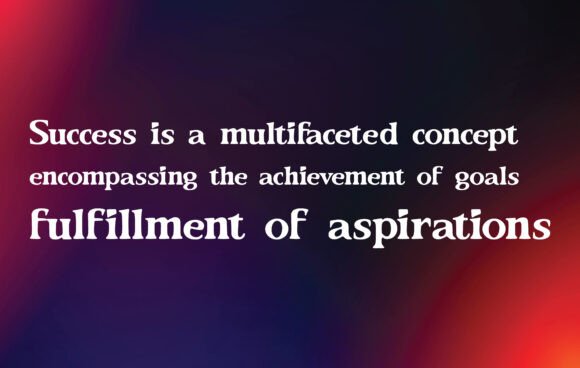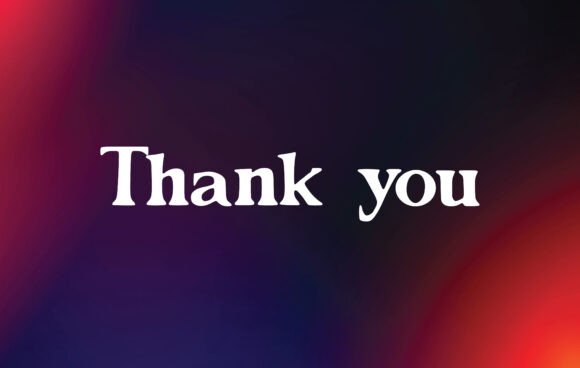
Discover the Elegance of Angela Font: Elevate Your Creative Projects
Are you a designer, craftsperson, or DIY enthusiast looking for a font that can take your creative ideas to new heights? Look no further than Angela Font, a lovely and beautiful typeface that is sure to impress. With its unique blend of elegance and versatility, Angela Font is the perfect choice for creating eye-catching logos, branding materials, and quotes that will leave a lasting impression.
The Beauty of Angela Font
Angela Font is a stunning example of typographic design, with its flowing lines, curves, and subtle nuances that give it a distinctive character. This font is designed to be both aesthetically pleasing and highly legible, making it perfect for a wide range of applications, from digital media to print materials. Whether you’re creating a logo, brochure, or social media graphic, Angela Font is sure to add a touch of sophistication and elegance to your design.
Why Choose Angela Font?
So, what sets Angela Font apart from other fonts on the market? Here are just a few reasons why designers and crafters are falling in love with this beautiful typeface:
- Unique and Versatile: Angela Font has a distinctive character that sets it apart from more traditional fonts. Its versatility makes it perfect for a wide range of applications, from logos and branding to quotes and social media graphics.
- Elegant and Sophisticated: With its flowing lines and subtle nuances, Angela Font adds a touch of elegance and sophistication to any design. It’s perfect for creating high-end branding materials, luxury product packaging, and more.
- Highly Legible: Despite its elegant appearance, Angela Font is highly legible, even at small sizes. This makes it perfect for use in digital media, such as social media graphics, website headers, and more.
Using Angela Font in Your Designs
Angela Font is incredibly easy to use, and can be incorporated into a wide range of design projects. Here are a few ideas to get you started:
- Logos and Branding: Create a stunning logo or branding material that stands out from the crowd with Angela Font. Its unique character and elegant appearance make it perfect for businesses, products, and services that want to make a lasting impression.
- Quotes and Social Media Graphics: Add a touch of elegance and sophistication to your social media graphics and quotes with Angela Font. Its highly legible and versatile design makes it perfect for use in digital media.
- Print Materials: Use Angela Font to create stunning print materials, such as brochures, flyers, and business cards. Its elegant appearance and high legibility make it perfect for a wide range of print applications.
Tips and Tricks for Working with Angela Font
Here are a few tips and tricks to help you get the most out of Angela Font:
- Experiment with Different Sizes: Angela Font looks great at a wide range of sizes, from small and delicate to large and bold. Experiment with different sizes to find the one that works best for your design.
- Pair with Other Fonts: Angela Font pairs beautifully with other fonts, particularly those with a more traditional or serif design. Experiment with different font combinations to find the one that works best for your design.
- Use in Combination with Images: Angela Font looks great in combination with images, particularly those with a natural or organic feel. Use Angela Font to add a touch of elegance and sophistication to your image-based designs.
In conclusion, Angela Font is a beautiful and versatile typeface that is perfect for designers, craftspersons, and DIY enthusiasts looking to elevate their creative projects. With its unique blend of elegance and sophistication, Angela Font is sure to impress, whether you’re creating logos, branding materials, quotes, or social media graphics. So why wait? Download Angela Font today and discover the power of beautiful typography for yourself.